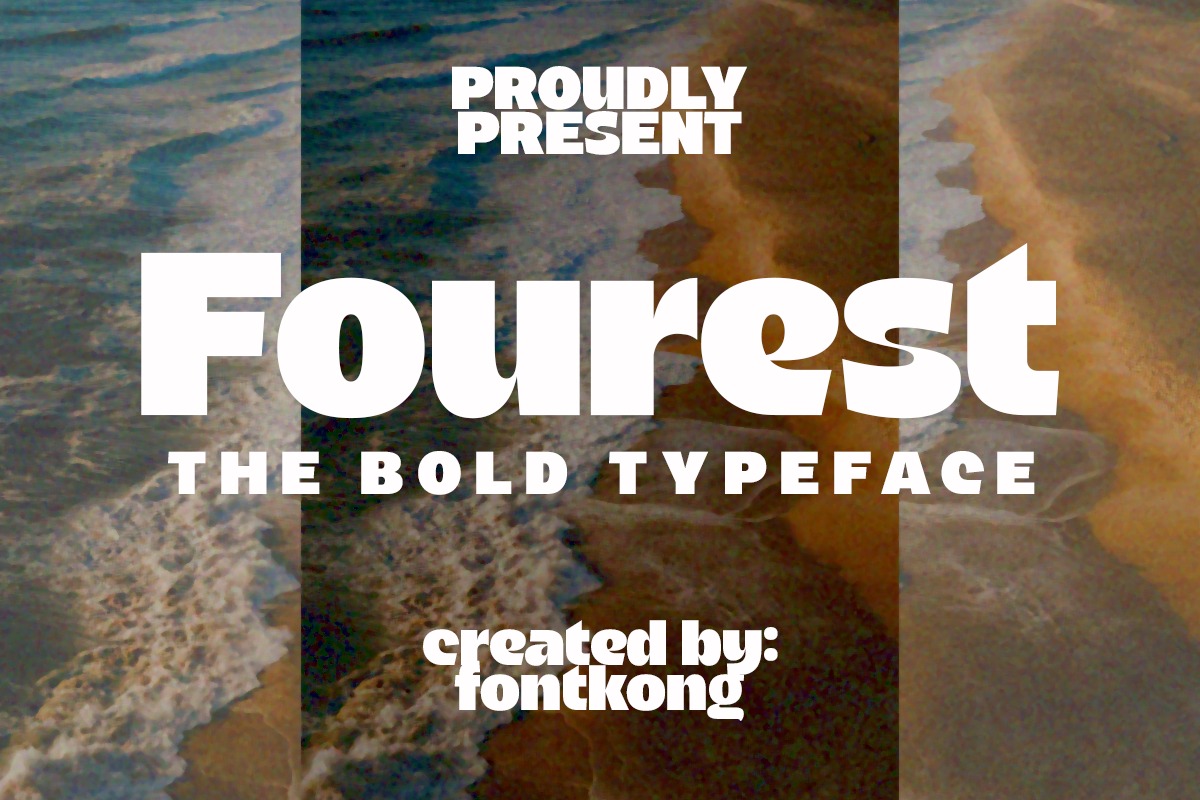
Fourest – Modern Diplay Font
Fourest – Modern Diplay Font is a premium-quality font developed to enhance your work with a polished, modern, and visually elevated look. Fourest A Modern Display Font was designed to present a simple and bold impression to anyone who sees it. This is in line with the characteristics of the letters in the Fourest A Modern Display Font is very clean without unnecessary knick-knacks in each letter. This font stands tall and exudes a confident vibe. People who read various texts using this type of font don’t bother to be able to read and understand this font. In other words, the Fourest A Modern Display Font is legible. As the name implies, the Fourest A Modern Display Font is very suitable for use as a font for all products. Those who like simple letters but are still aesthetic will choose this font. Modern impressions can use for banners, posters, and merchandise. This font can be printed small or large and still looks great from close up or afar. This font can be used for magazine covers and reading books. Not only that, Fourest A Modern Display Font can be used as a digital font. The font can be applied to a video intro title and outro. This font is suitable for product branding. These can be product brand tags and advertising posters. This font can also use as a business card. Based on the Fourest A Modern Display Font function description, this font can use as a digital and print font. Our display font collection is compatible to use as a Figma font, Canva fonts, Freepik Fonts, and Adobe Fonts. They also work as Windows and Apple Fonts. For your social media needs, you can use and install fonts in our Sans Serif font collection to use as Instagram Fonts, Facebook Fonts, and Twitter Fonts.